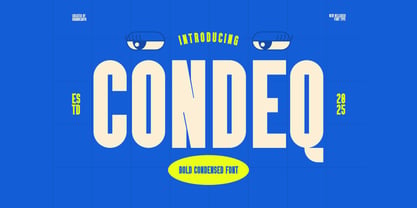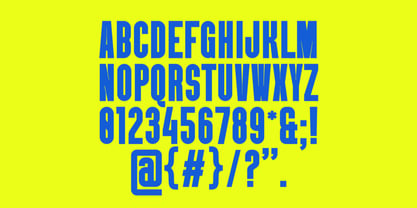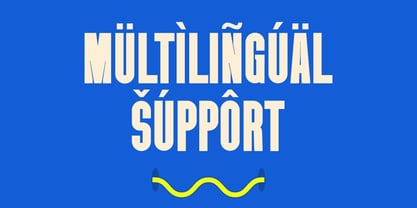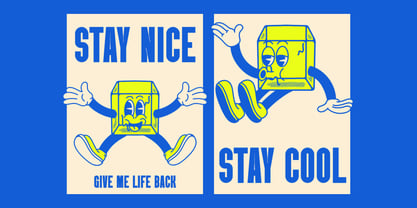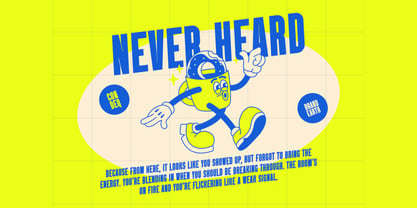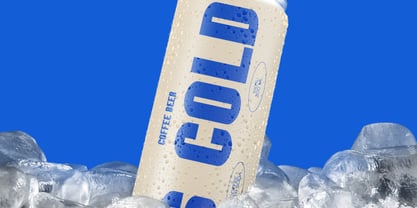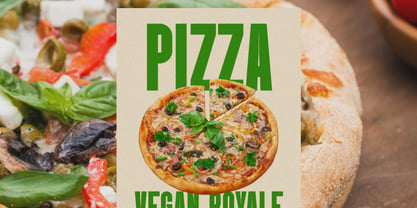
Condeq
The Condeq Font Family was designed by Moch Rasjid Wiyono and published by Brandearth. Condeq contains 1 styles. More about this family
Condeq is a bold condensed display typeface built for maximum visual impact. Designed with strong vertical proportions, tight spacing, and solid geometric construction, this font delivers a confident and energetic presence. Its tall, compressed letterforms create powerful headlines while maintaining excellent legibility. Condeq is ideal for sports branding, event posters, athletic campaigns, streetwear labels, esports promotions, advertising headlines, packaging design, and bold social media graphics. Its condensed structure allows designers to maximize space while maintaining strong visual dominance, making it highly effective for posters, billboards, and digital banners.